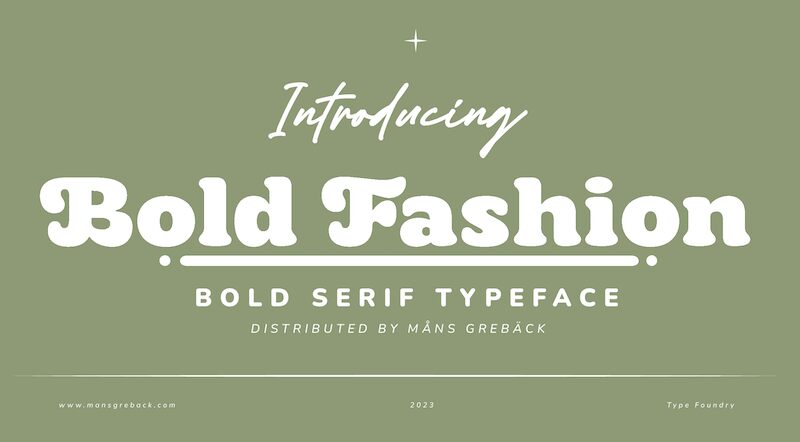
Bold Fashion is a heavy slab-serif font from Mans Greback, perfect for projects that want to capture the essence of the disco era. Its retro style and extra-bold weight make it stand out, while its expanded width adds a touch of uniqueness. The font's funk-inspired design, with soft rounded serifs and swashes on uppercase letters, brings back memories of neon lights and roller discos.
Whether you're designing a vintage-themed party invitation or creating a groovy album cover, Bold Fashion will add a playful yet professional touch to your project. With 16 styles to choose from and advanced OpenType functionality, this font offers full control and customizability.
It also has extensive lingual support, making it suitable for projects in various Latin-based languages across the globe.